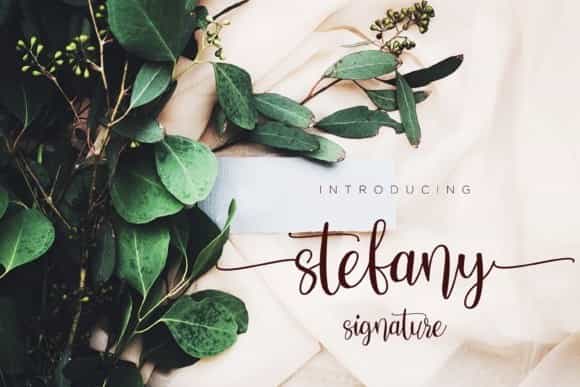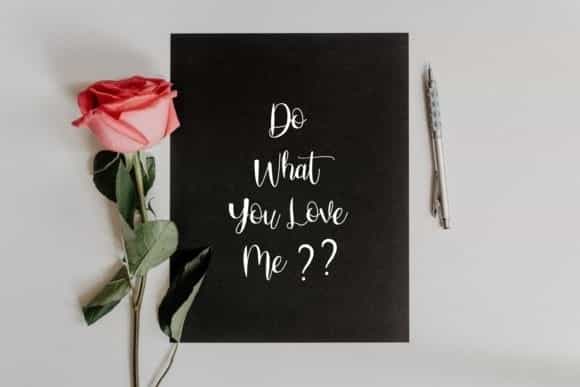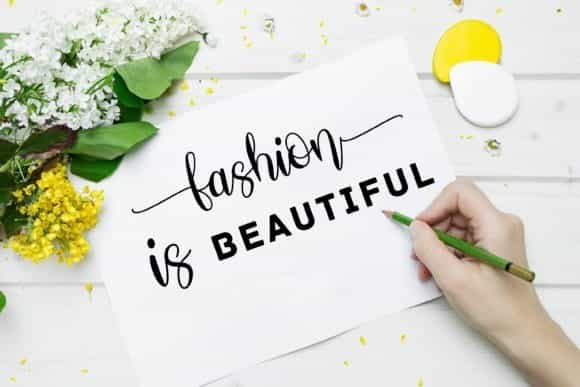
Discover Stefany Calligraphy Font, part of the Calligraphy Handwritten collection—a versatile and unique font perfect for adding a personal touch to your projects. Download it for free and enjoy crafting designs with style, from invitations to social media posts. This font is available exclusively for personal use, giving you the freedom to create without limits. Unlock your creativity with Stefany Calligraphy Font today!
Stefany is a hand drawn, elegant and modern calligraphic font that will suit perfectly your wedding design projects, invitations, greeting cards, signatures as well as watermarks on the pictures. It can also be used for logos and handwriting purposes too.